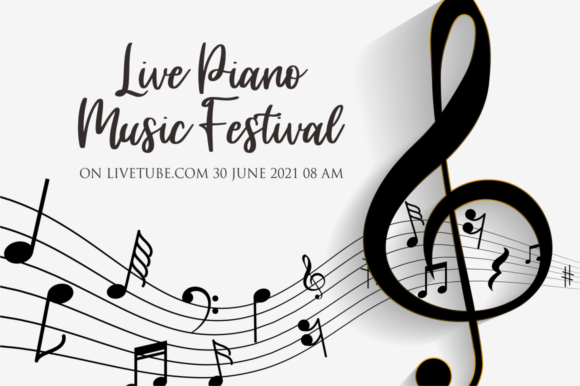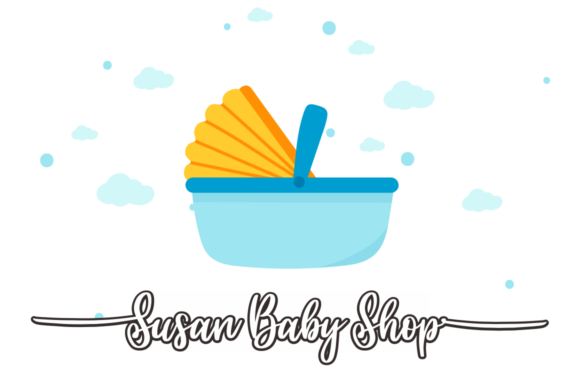
Snow White Font
db-ku.com - Script & Handwritten -- Snow White is an incredibly distinct, delicate and timeless handwritten font. It looks stunning on wedding invitations, thank you cards, quotes, greeting cards, logos, business cards and every other design which needs a handwritten touch. It features a varying baseline, smooth lines, gorgeous glyphs and stunning alternates.